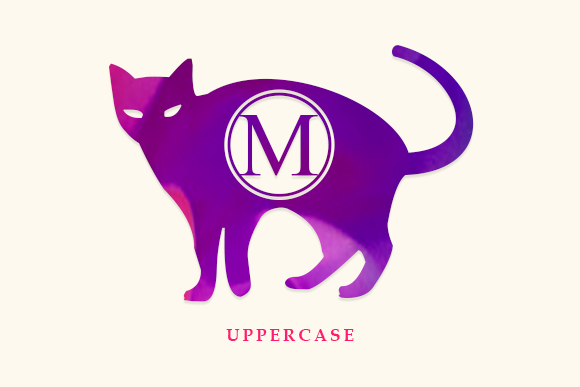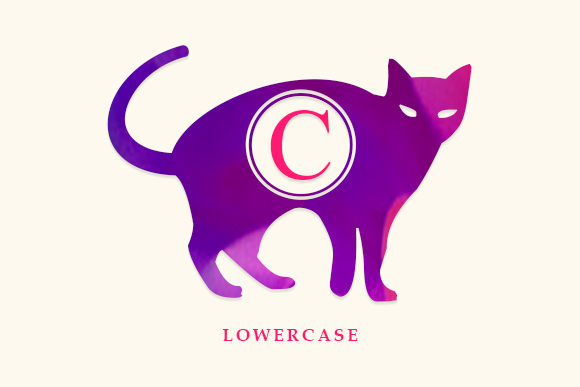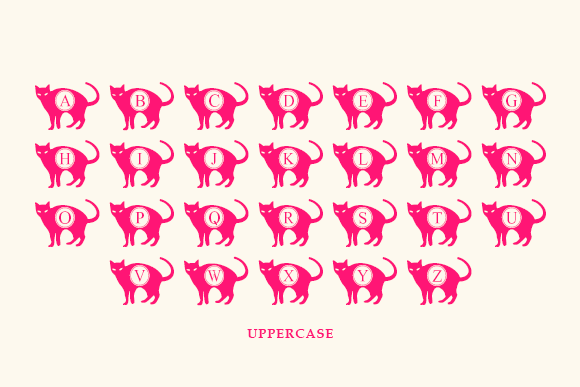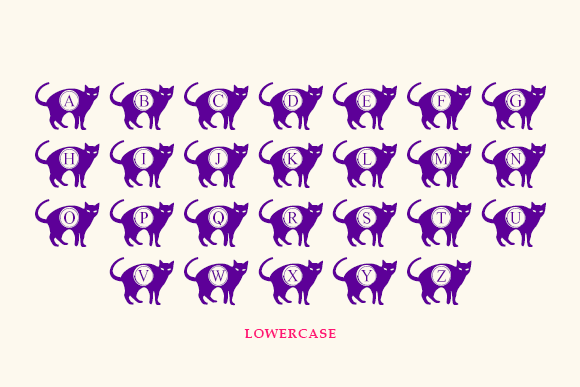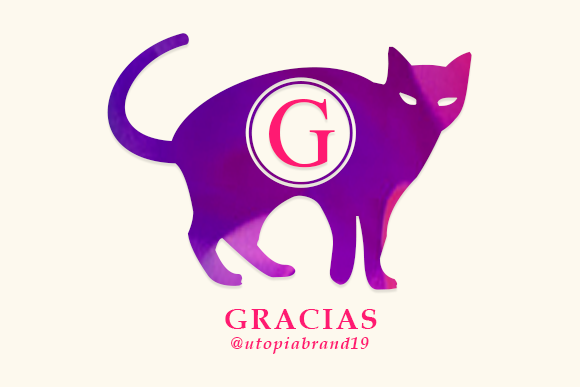
Discover the Whimsical Charm of Black Cat Font: A Purrfect Addition to Your Design Collection
Are you a designer, crafter, or simply a cat lover looking for a unique and captivating font to elevate your creative projects? Look no further than the enchanting Black Cat Font. This elegant decorative font is specifically designed to add a touch of whimsy and sophistication to your designs, featuring an array of lovely cat-themed ornaments that are sure to delight.
The Authentic Feel of Black Cat Font
One of the standout features of Black Cat Font is its authentic feel. The font’s design is inspired by traditional decorative art, with intricate details and ornate flourishes that evoke a sense of nostalgia and charm. The result is a font that feels both vintage and modern, making it perfect for a wide range of design applications.
Uses for Black Cat Font
Black Cat Font is incredibly versatile, and its uses are limited only by your imagination. Here are just a few ideas to get you started:
- Stationary Art: Create beautiful, eye-catching stationery, including invitations, greeting cards, and letters, that are sure to impress.
- Social Media Posts: Add a touch of personality to your social media posts with Black Cat Font’s cute and playful cat-themed ornaments.
- Greeting Cards: Design adorable greeting cards for cat lovers, complete with custom illustrations and typography.
- Digital Art: Use Black Cat Font to create stunning digital art, including illustrations, graphics, and mixed media pieces.
Key Features of Black Cat Font
So, what makes Black Cat Font so special? Here are just a few of its key features:
- Elegant Decorative Design: Black Cat Font features an elegant, decorative design that’s perfect for adding a touch of sophistication to your projects.
- Cat-Themed Ornaments: The font includes a range of lovely cat-themed ornaments, from cute little cat faces to intricate paw prints.
- Authentic Feel: Black Cat Font has an authentic, vintage feel that’s sure to charm.
Tips for Using Black Cat Font
To get the most out of Black Cat Font, here are a few tips to keep in mind:
- Experiment with Different Sizes: Black Cat Font looks great in a range of sizes, from small and delicate to large and bold.
- Combine with Other Fonts: Try pairing Black Cat Font with other fonts to create interesting and unique typography.
- Use for Headings and Titles: Black Cat Font is perfect for headings and titles, where its decorative design can really shine.
In conclusion, Black Cat Font is a truly unique and captivating font that’s perfect for designers, crafters, and cat lovers alike. With its elegant decorative design, lovely cat-themed ornaments, and authentic feel, it’s sure to add a touch of whimsy and sophistication to your creative projects. So why not give it a try and see what beautiful designs you can create?
Whether you’re looking to create stunning stationary art, eye-catching social media posts, or cute greeting cards, Black Cat Font is the purrfect addition to your design collection. So fall in love with its charm and start creating today!